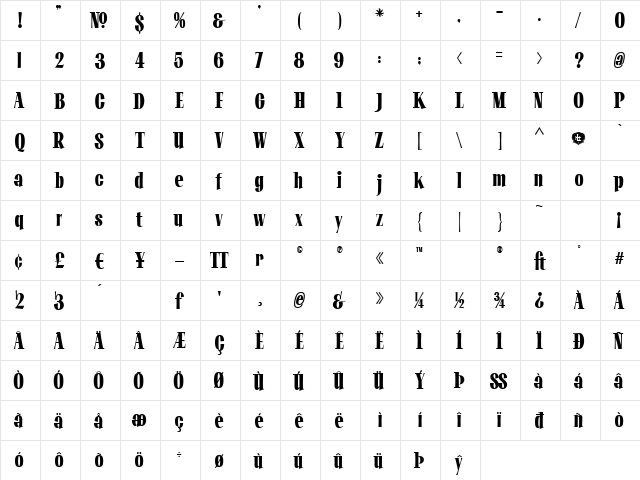
LHF Opening Night SERIF Regular
Design Context for LHF Opening Night SERIF Typeface
LHF Opening Night SERIF brings classic typographic sensibility to the table — its serifs and measured letterforms reflect centuries of print heritage.
Pro Tip: Use LHF Opening Night SERIF for editorial body copy and considered headline work. Pair with a neutral sans for UI elements or captions to create a classic hierarchy.